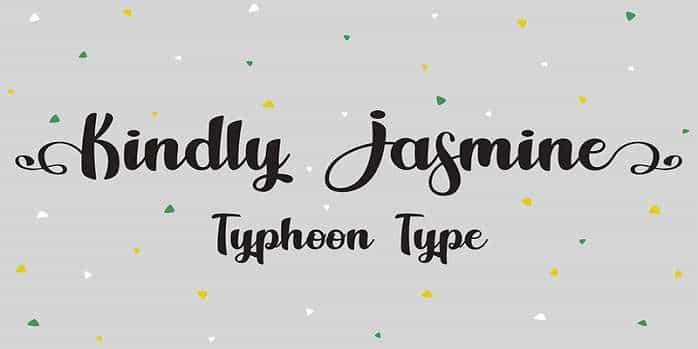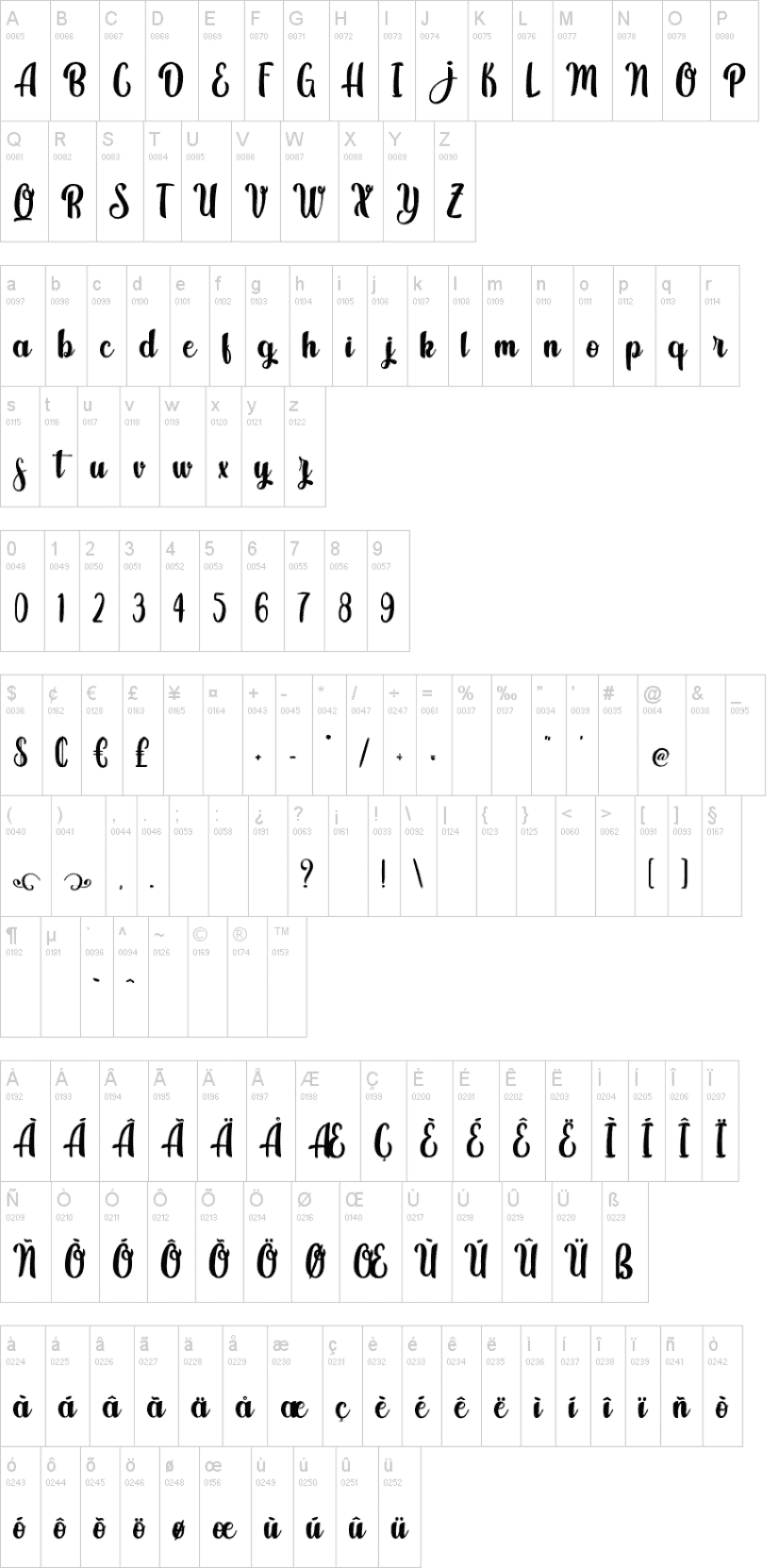
The stylistically delicate Kindly Jasmine is perfect for clothing & apparel, small businesses and personal branding, magazine, product packaging and many other fields.